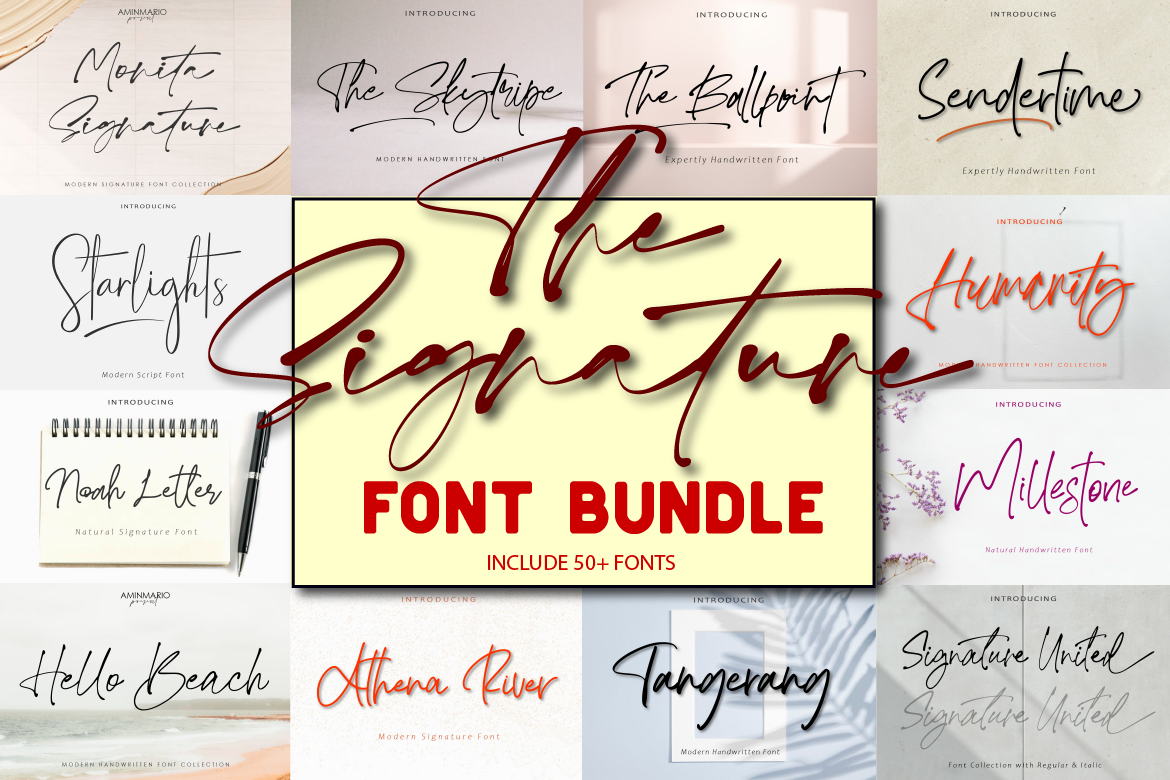
Since a lot of you guys asked me about Best Signature Font Bundle, I decided to make this amazing bundle with big discount.
The amazing bundle contains 50+ fonts in 35+ typefaces signature script type. You will save until $500 more.
The bundle comes with many opentype features such as Alternates,Ligature and Swash, and also support multilingual.
This bundle perfect for logos, watermarks on photography, signatures, branding, advertisement, quotes, invitations, stationery, wedding design,album covers, business cards, magazines, posters, and more!